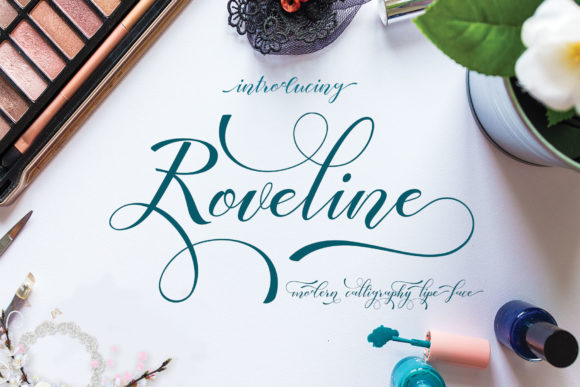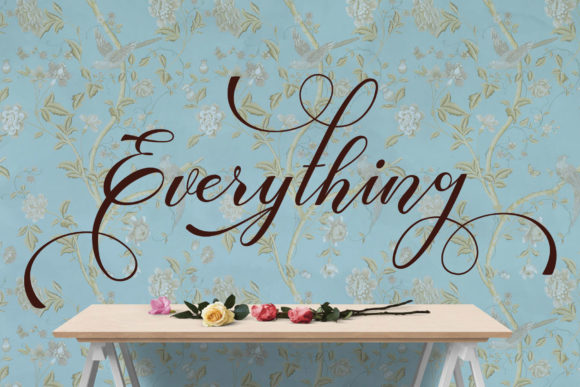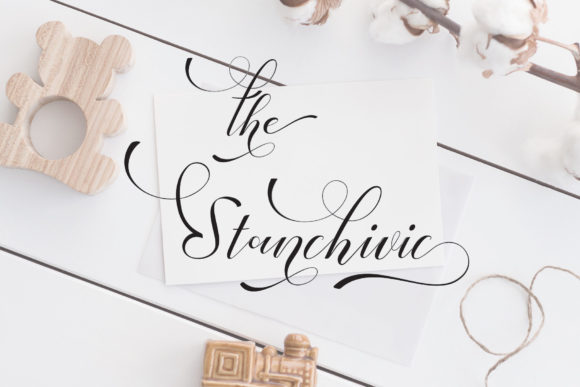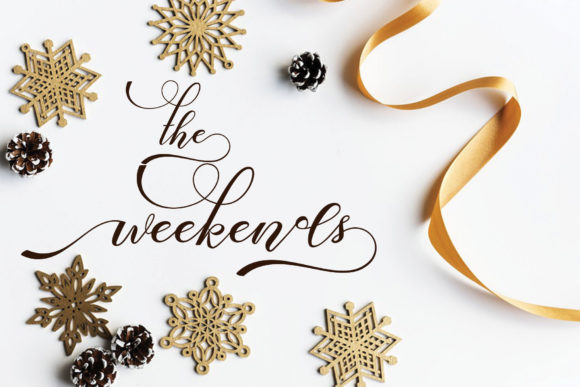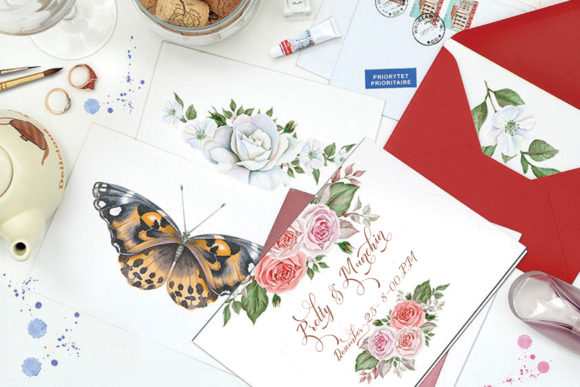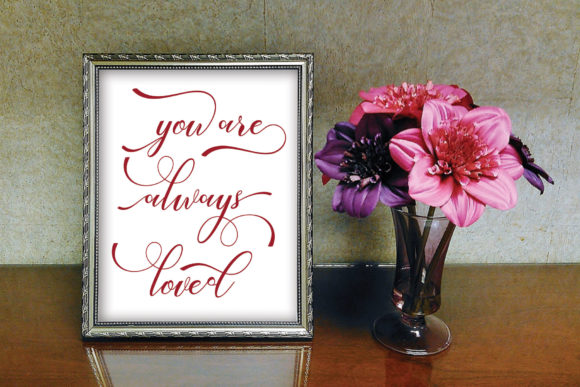
Roveline Script Font
About Roveline Script Font
The Roveline is a modern calligraphy font. Its beautiful swashes give it an elegant touch and it’s fine lines make it perfect for adding an upscale and chic look.
It can be used for signatures, logos, correspondences, wedding invitations, letterheads, signage’s, labels, newsletters, posters, badges, branding, greeting card, and much more!